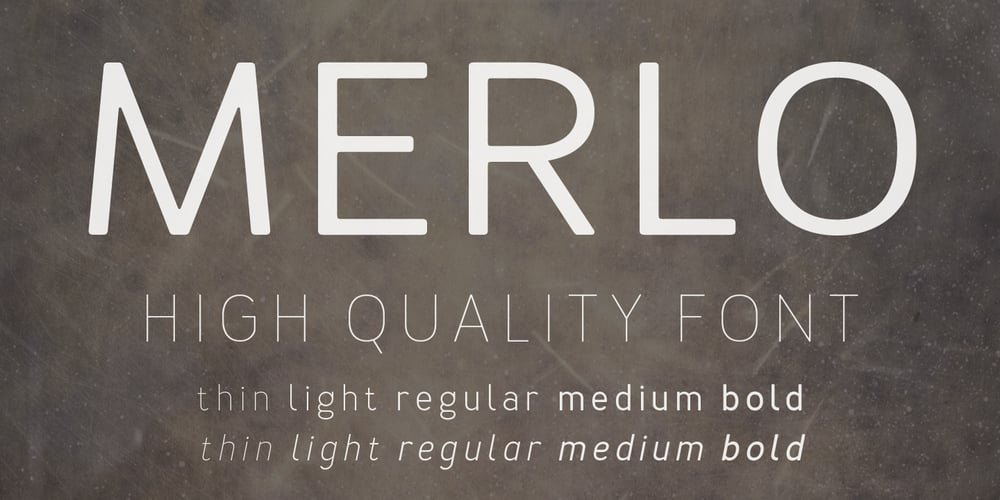
Merlo Font Family was designed by published by Typoforge Studio. Merlo contains 10 styles and family package options. Font Merlo is the younger sister of Cervo. Font Merlo is characterized by eight different varieties – lower and uppercase characters. It is inspired by a You And Me Monthly published by National Magazines Publisher RSW “Prasa” that appeared from May 1960 till December 1973 in Poland.